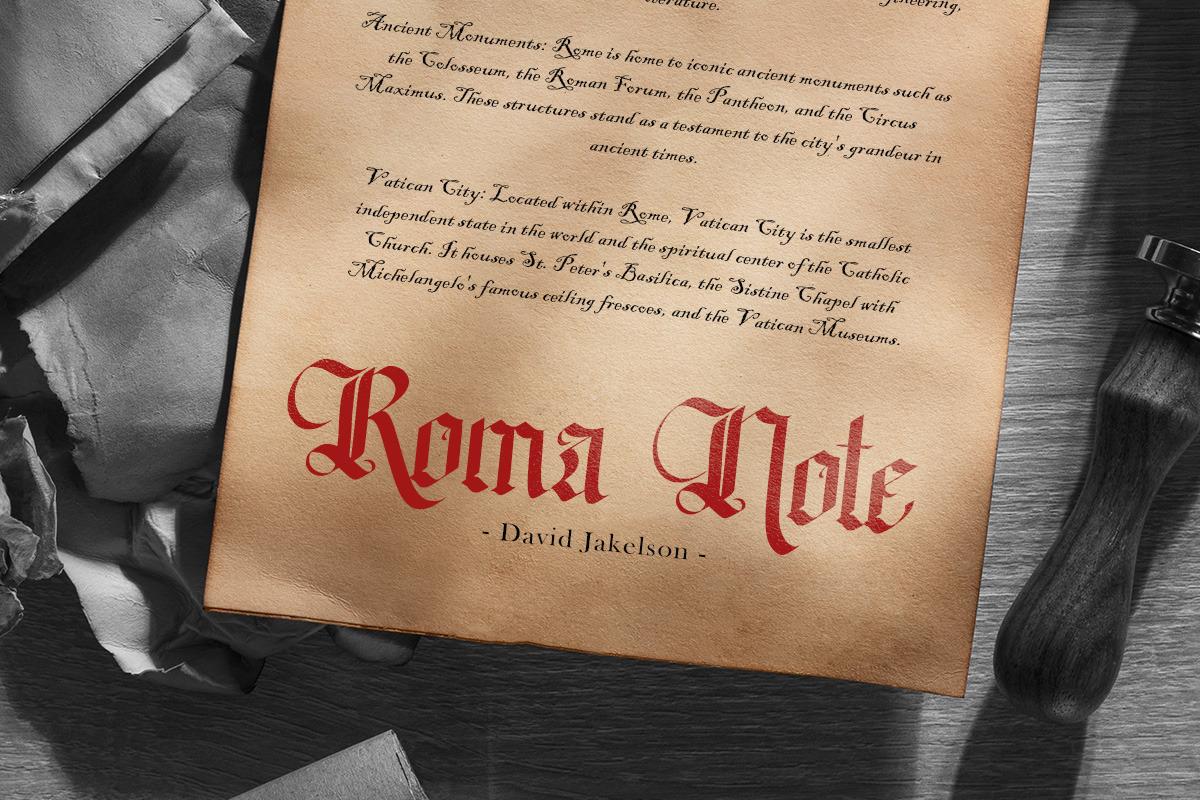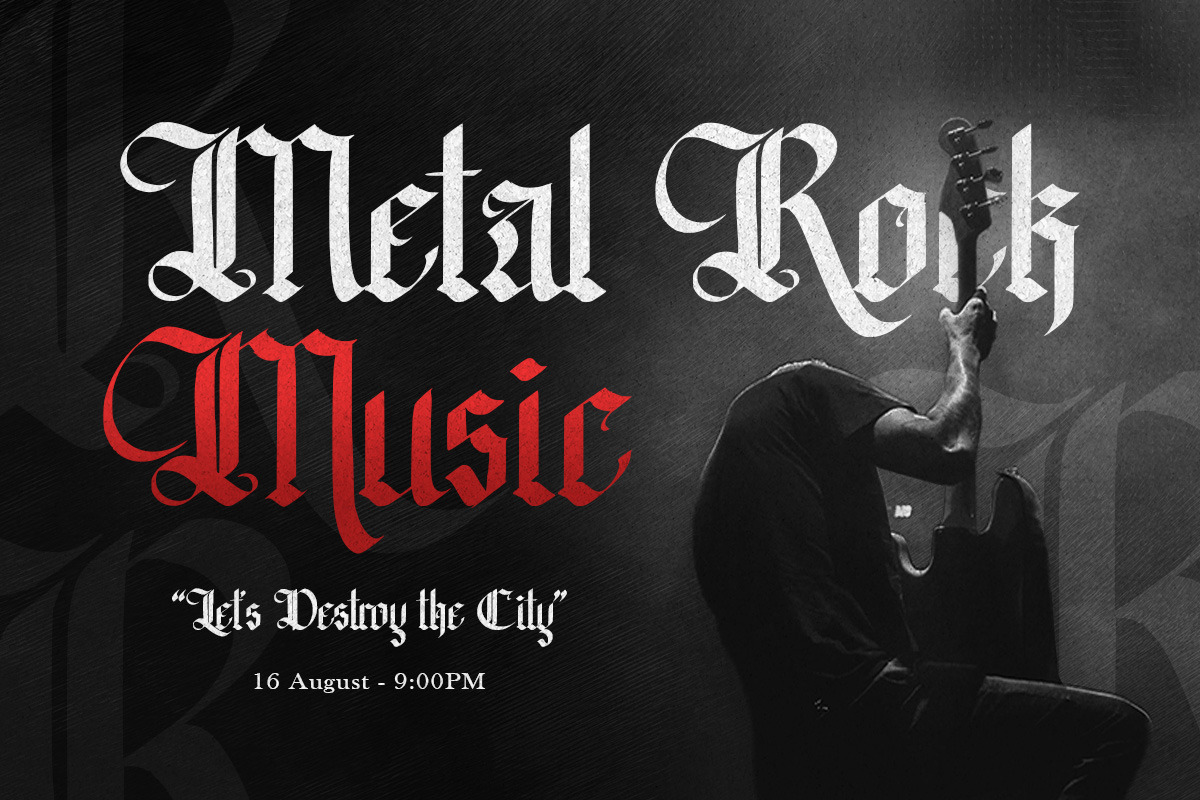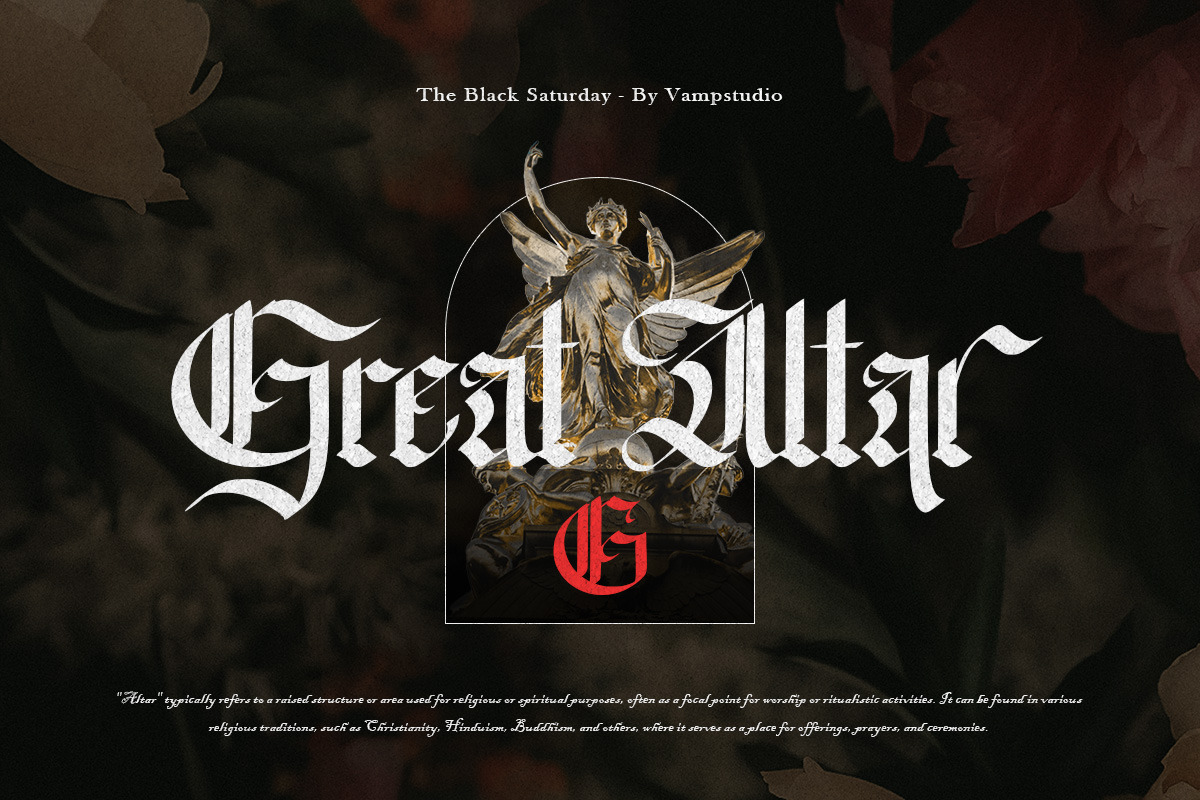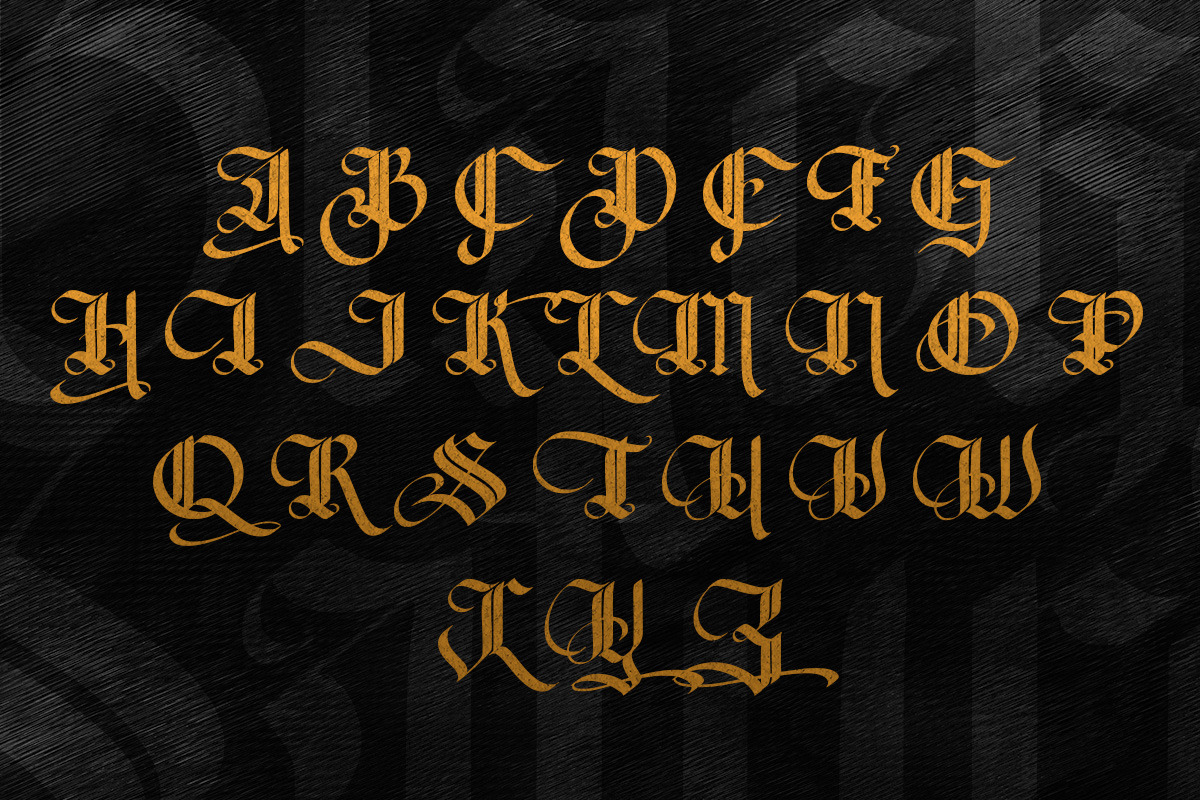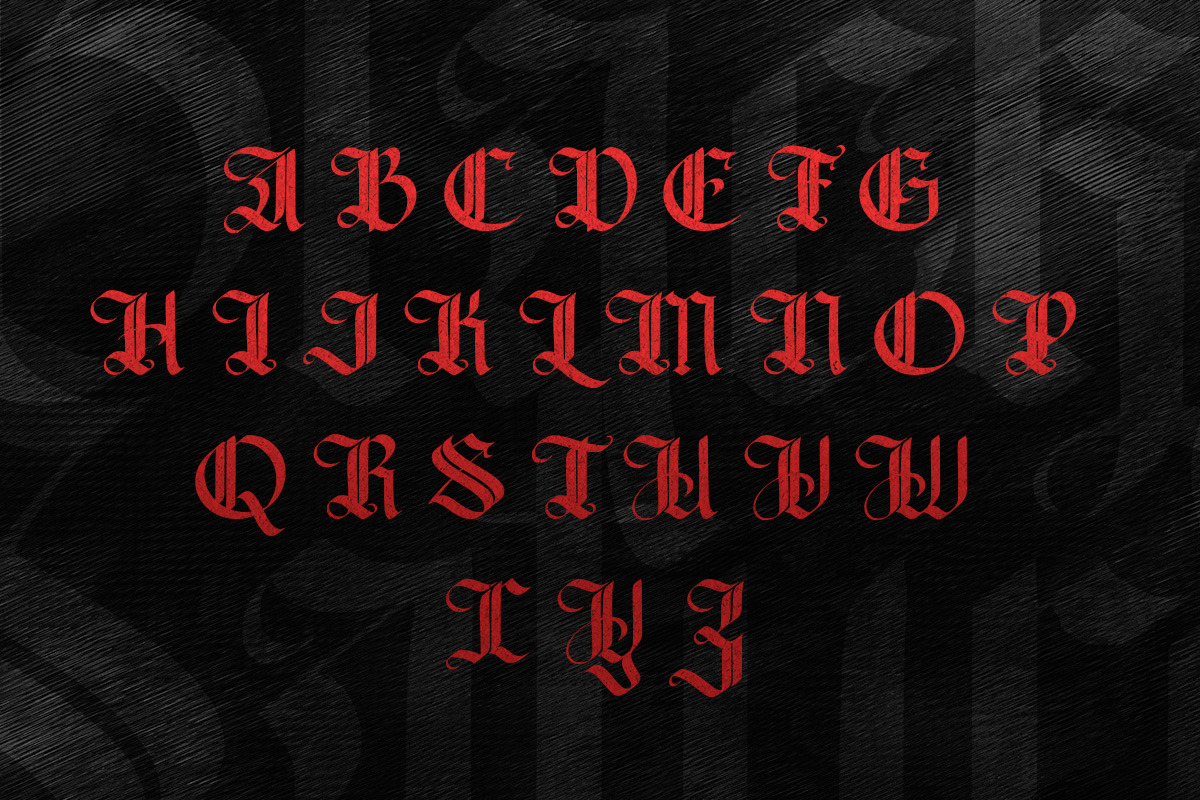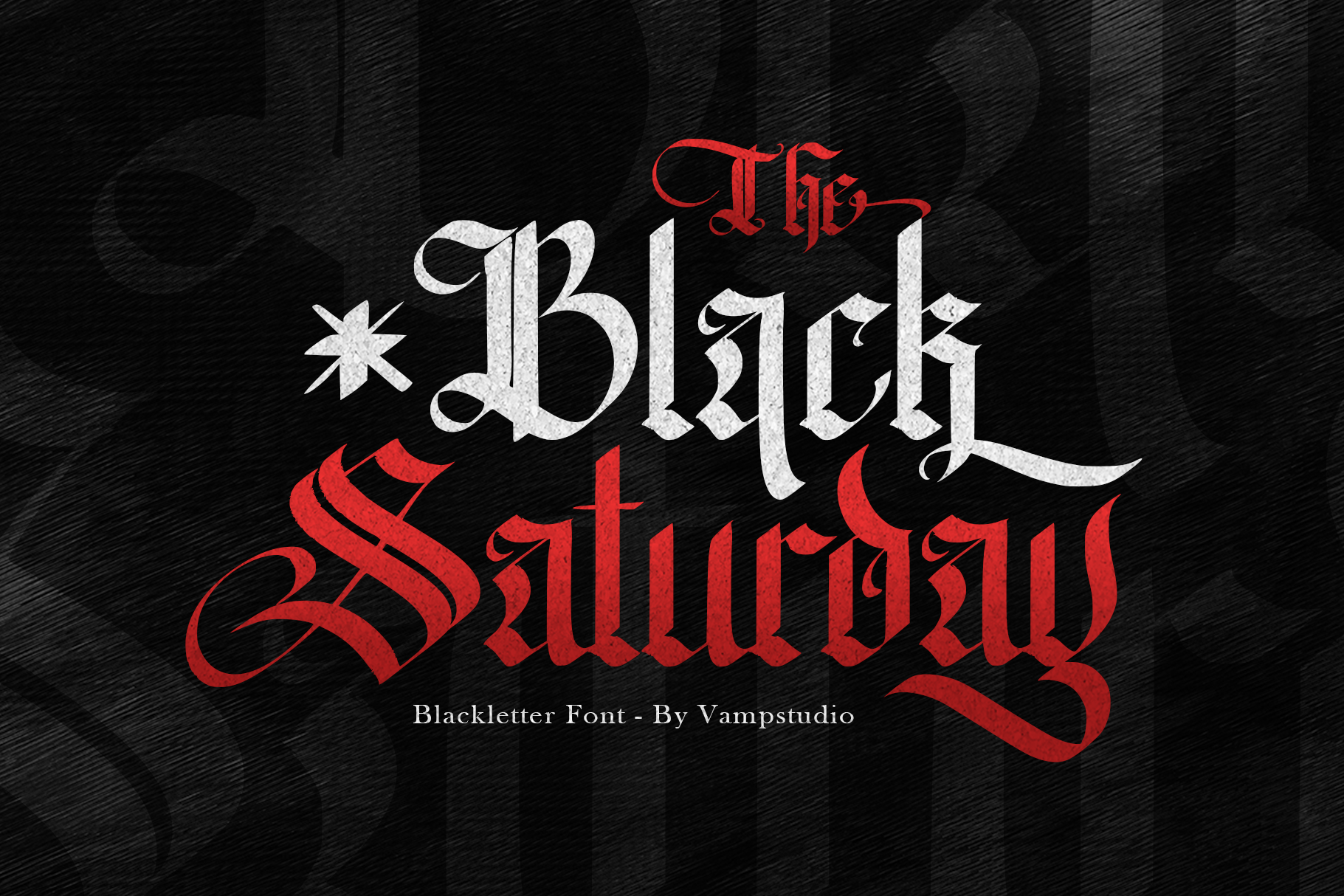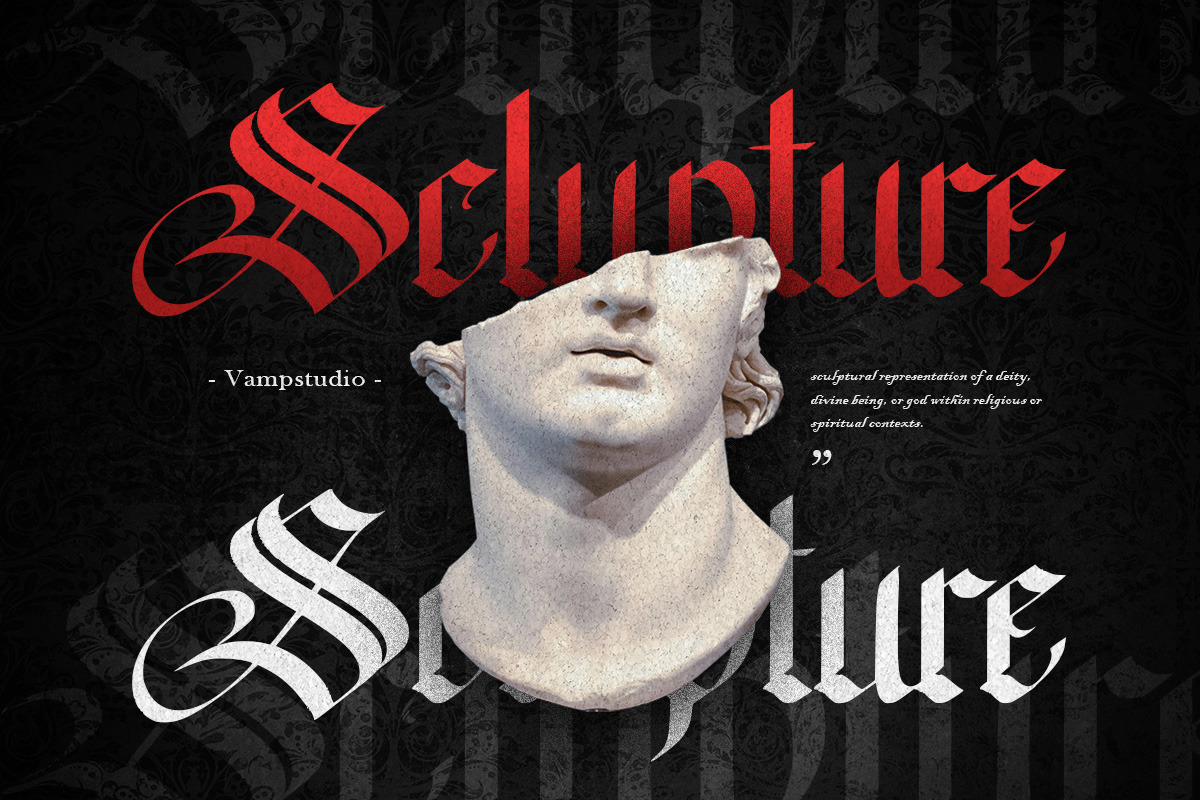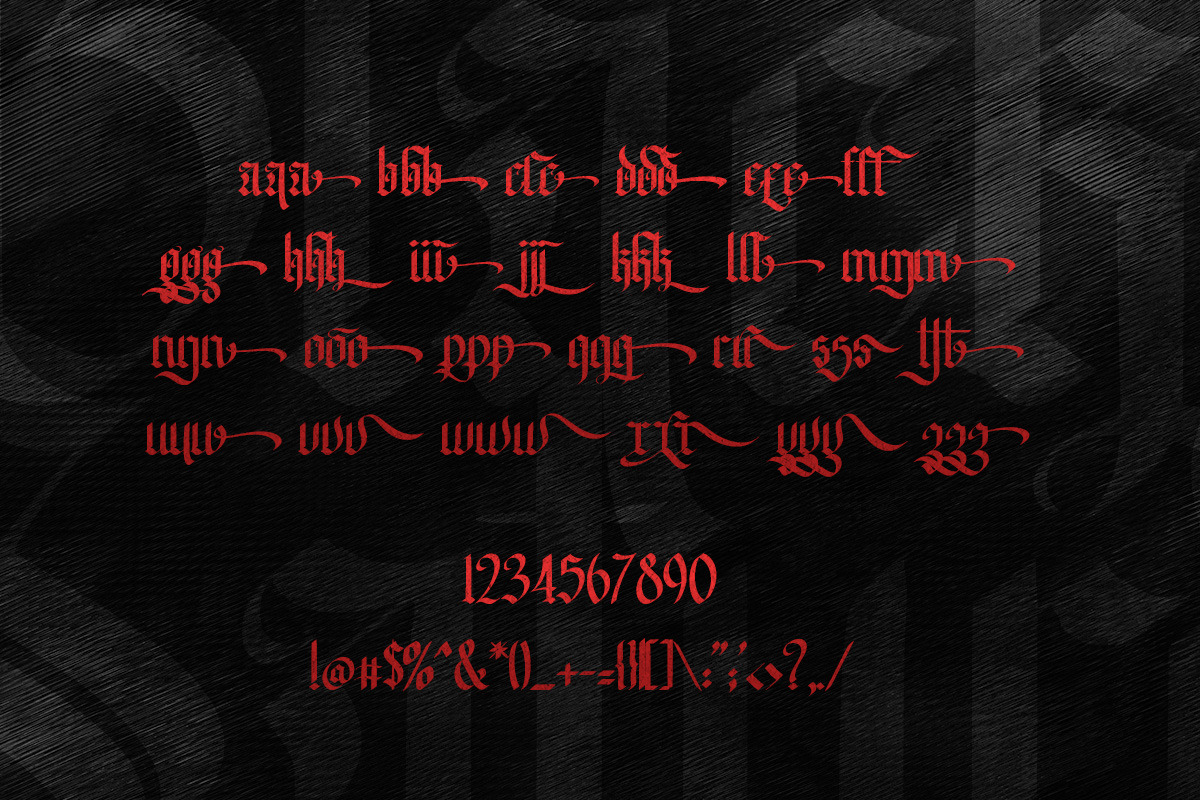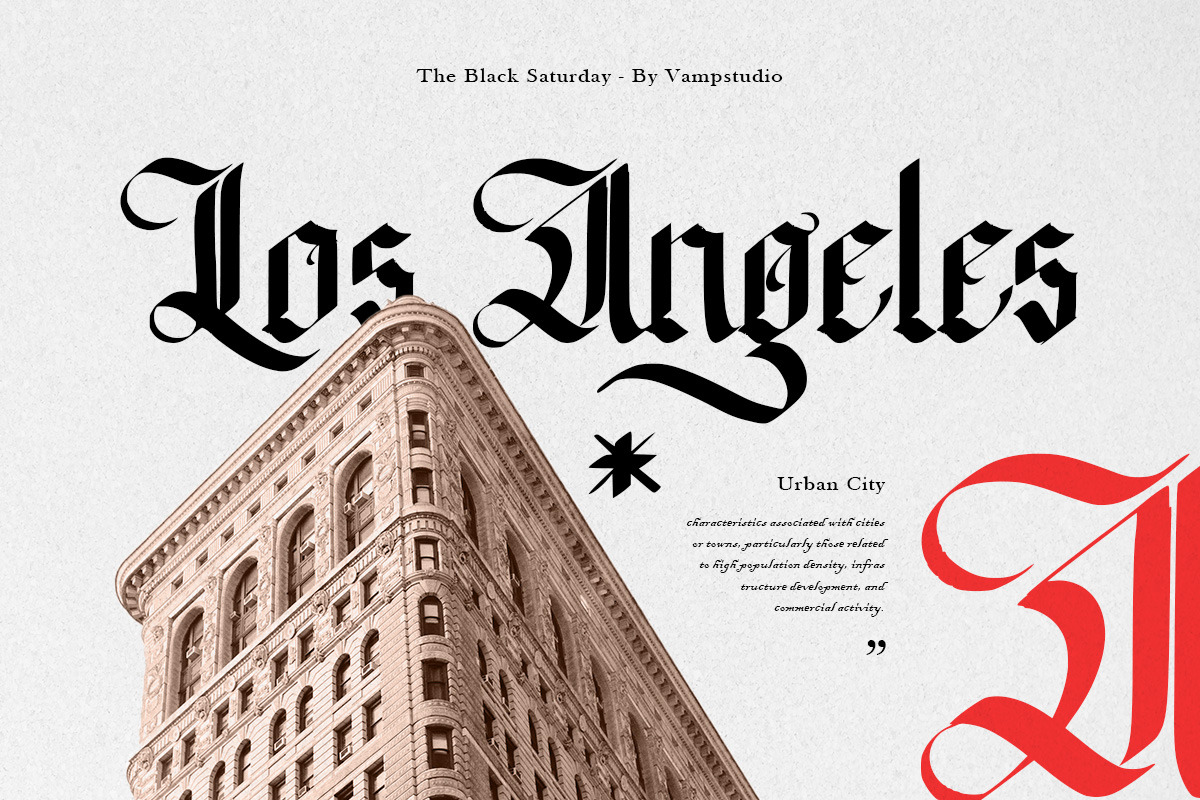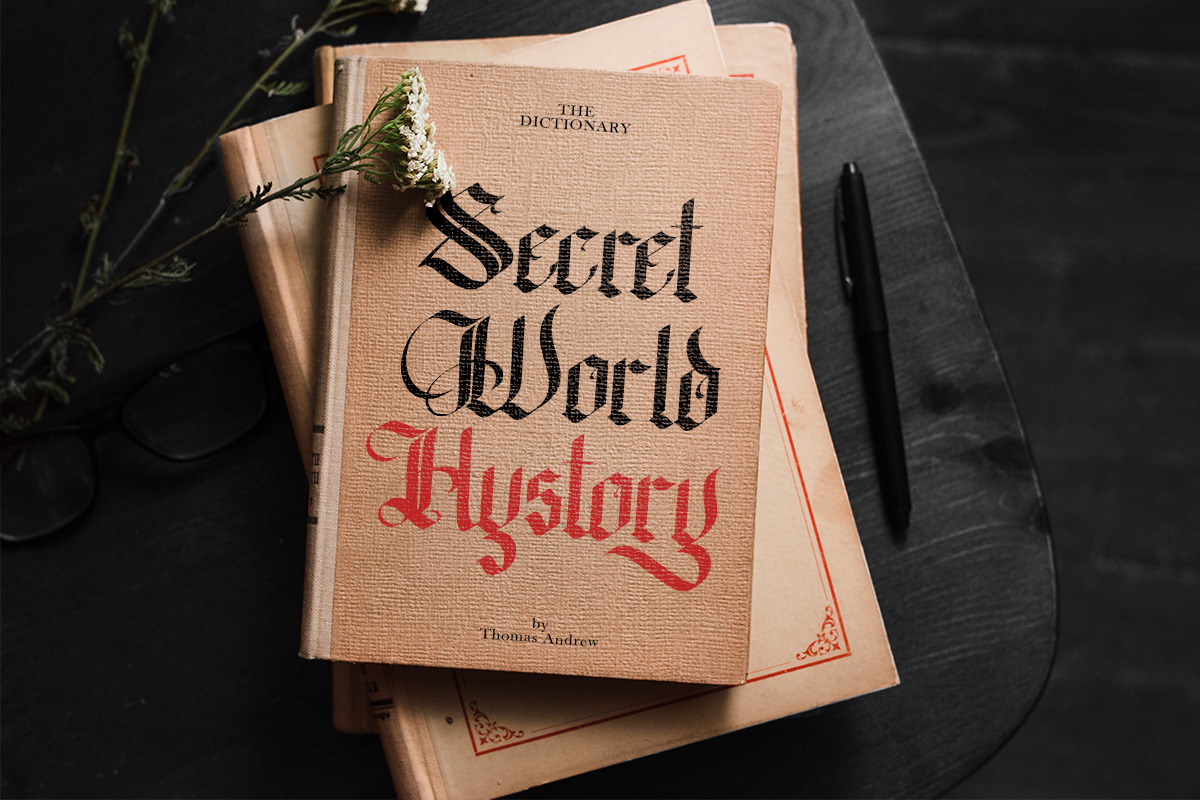
The Black Saturday Blackletter Font
The Black Saturday is a compelling blackletter font that exudes a sense of historical elegance and dark allure. Inspired by medieval script and Gothic calligraphy, this font merges classic design with modern edge, making it ideal for a variety of creative projects. Whether you're designing posters, book covers, or branding materials, The Black Saturday will imbue your work with a timeless, dramatic flair.
- Classic Blackletter Style: Evoking the beauty of traditional Gothic script, each character is meticulously crafted with detailed strokes and ornamental elements.
- Versatile Application: Perfect for a wide range of uses including tattoo designs, invitations, labels, and promotional materials.
- Bold and Striking: Designed to make a powerful statement, ideal for headlines, titles, and other prominent text.
- Complete Character Set: Includes uppercase, lowercase, numerals, punctuation, and special characters, ensuring comprehensive design capabilities.
- Historical Aesthetic: Brings a touch of medieval charm to contemporary projects, blending old-world elegance with modern usability.
The Black Saturday is more than just a font; it's a gateway to a bygone era, delivering an authentic Gothic experience that will captivate and inspire. Let your designs stand out with the majestic and mysterious appeal of The Black Saturday.